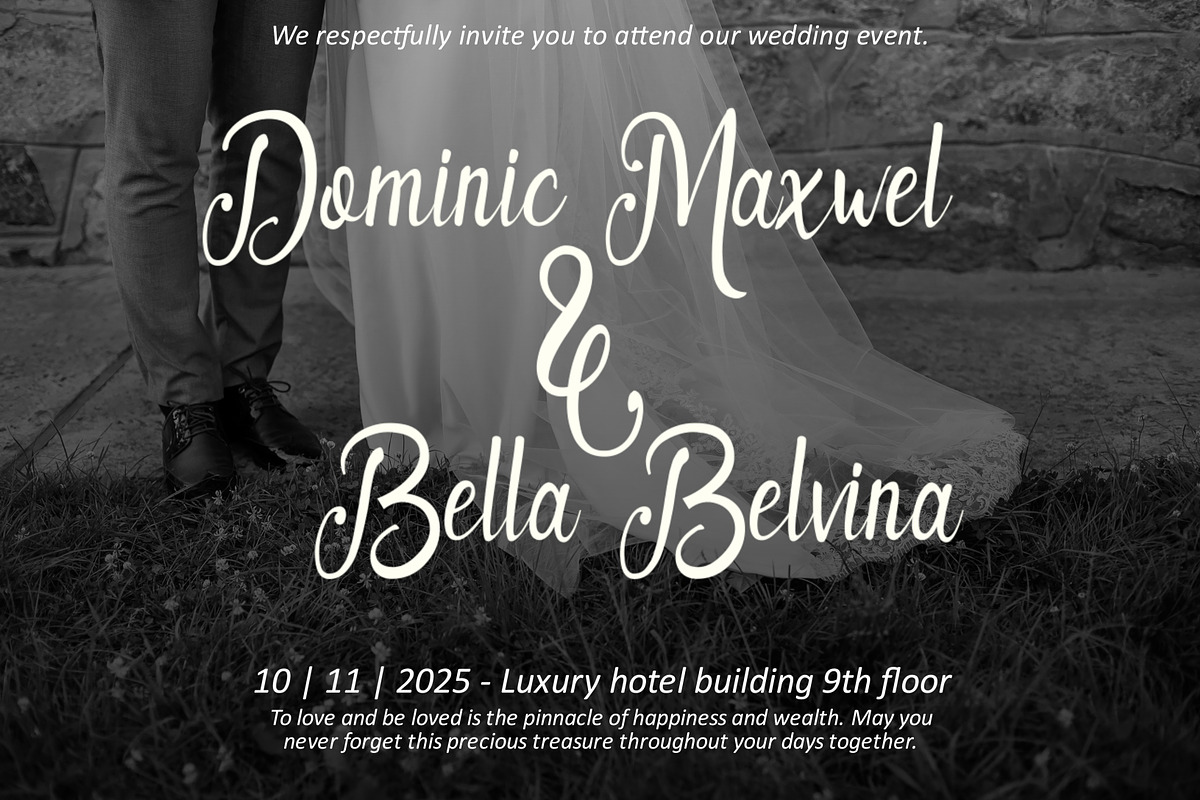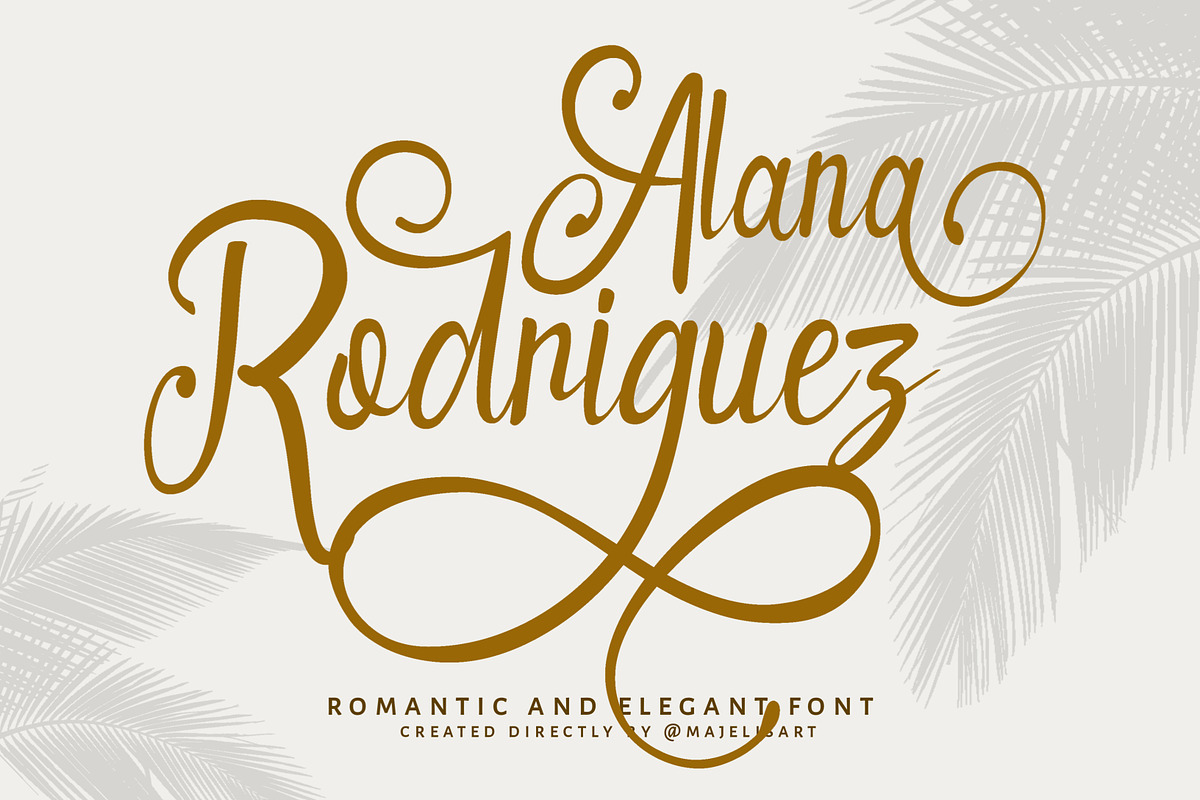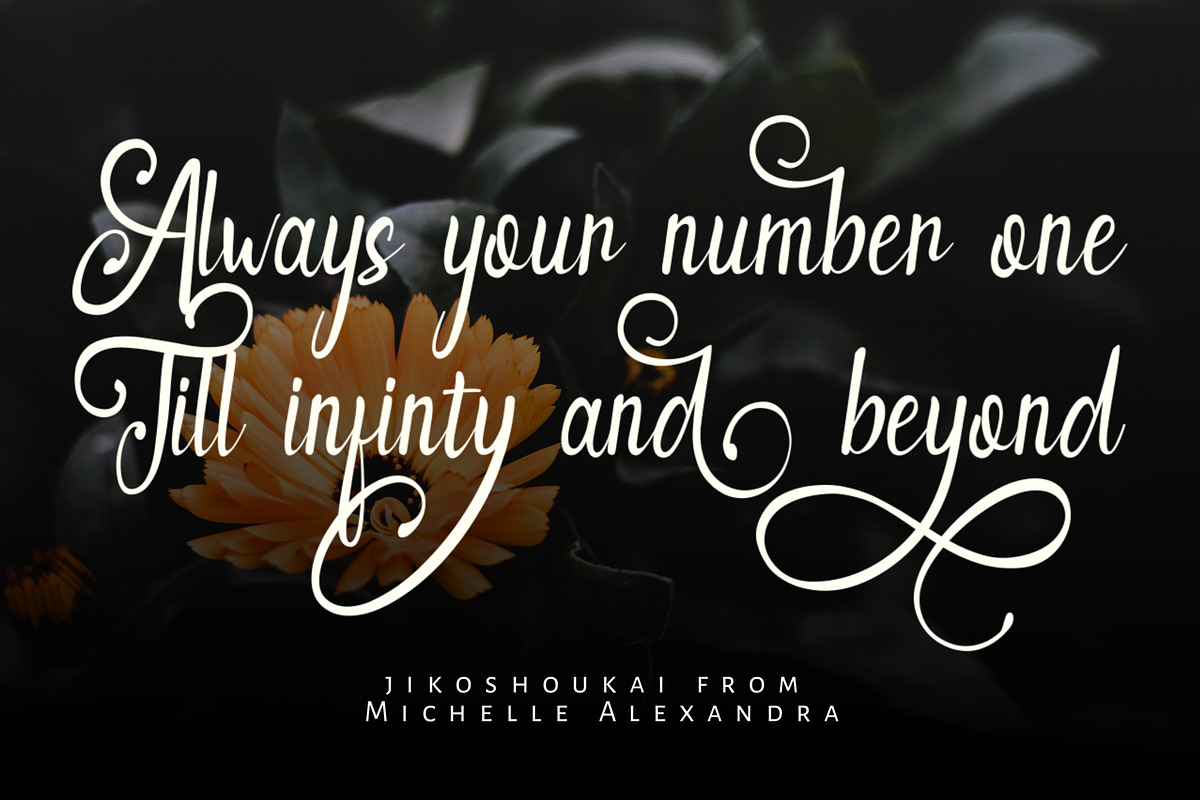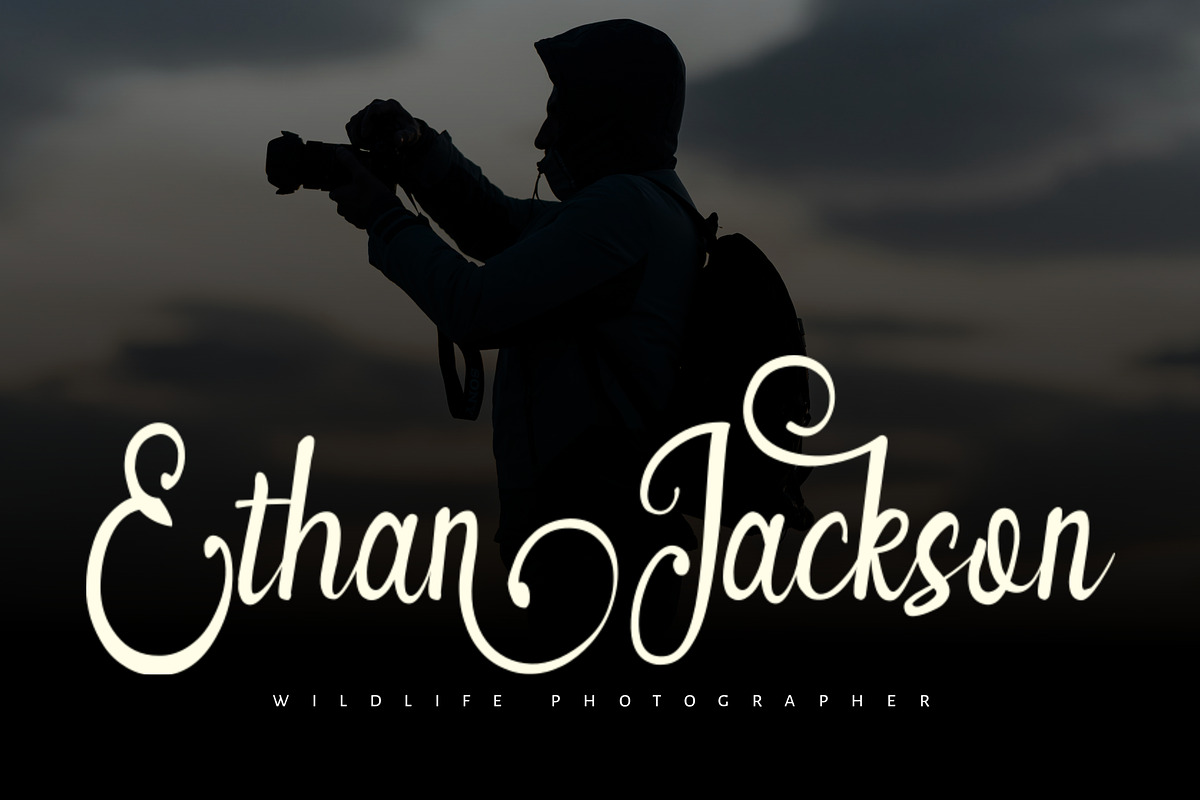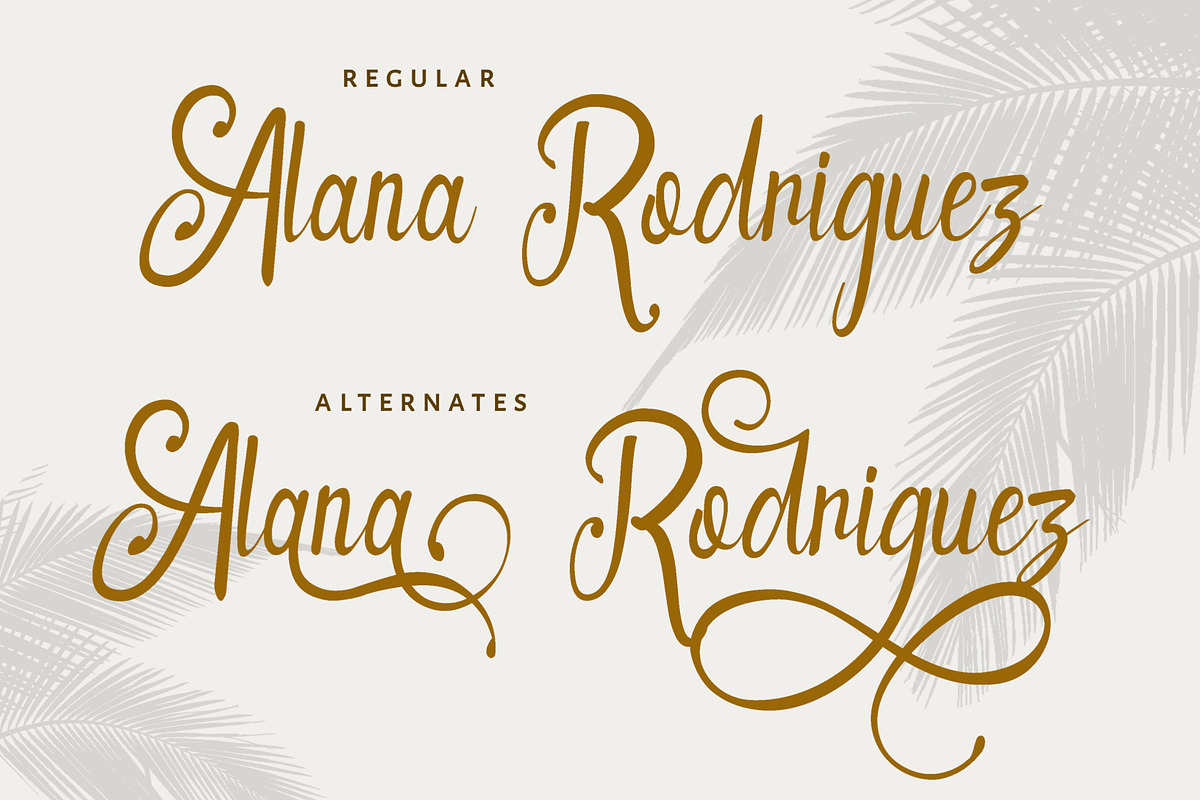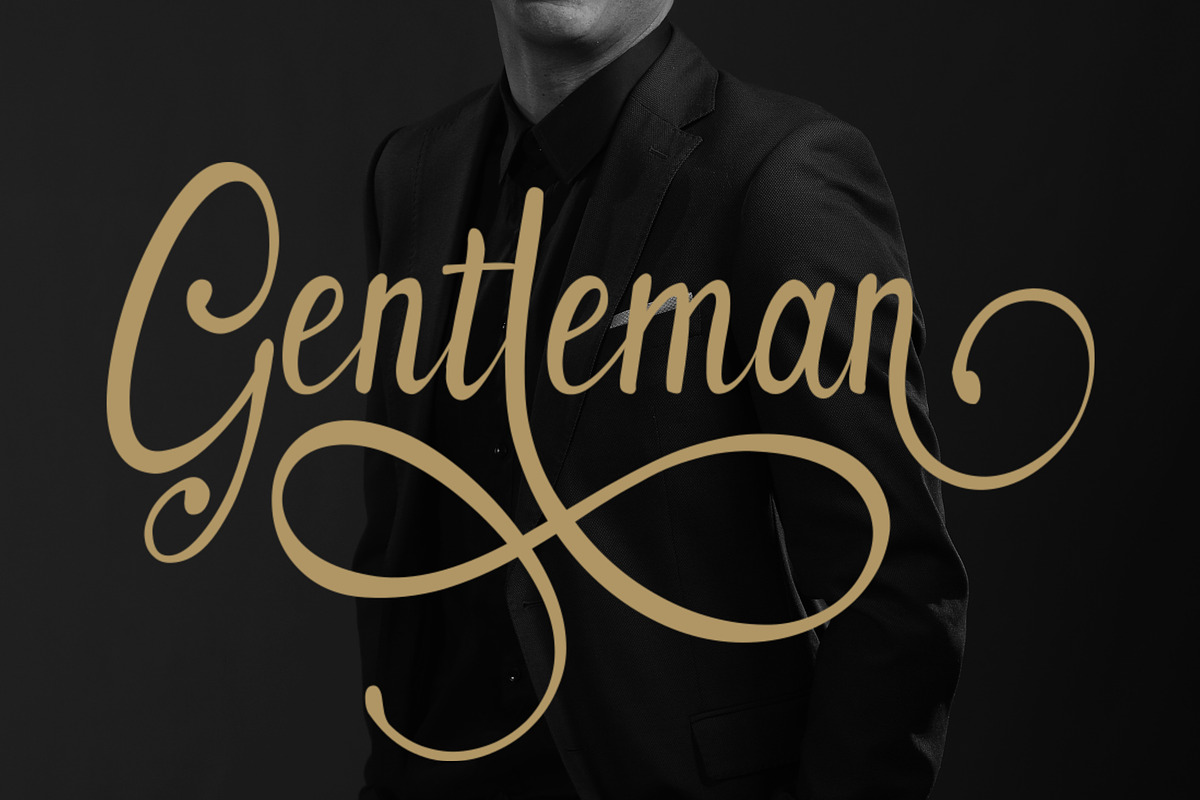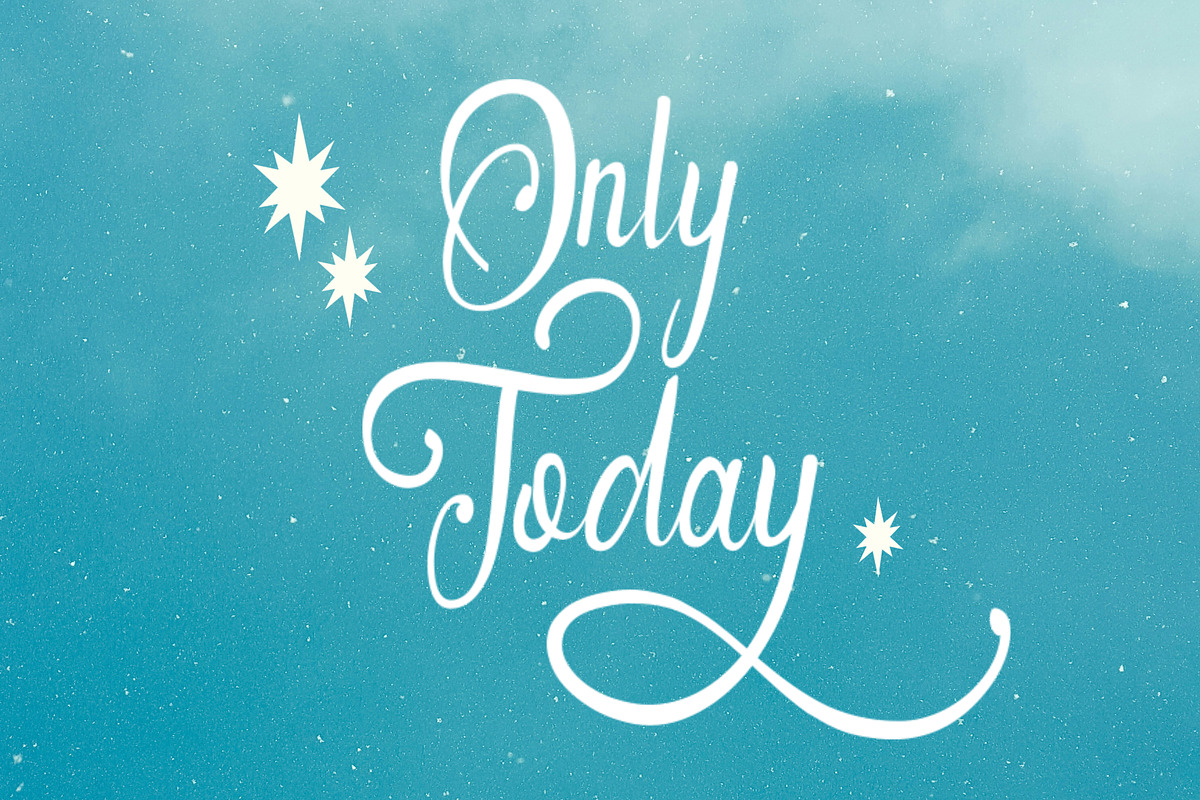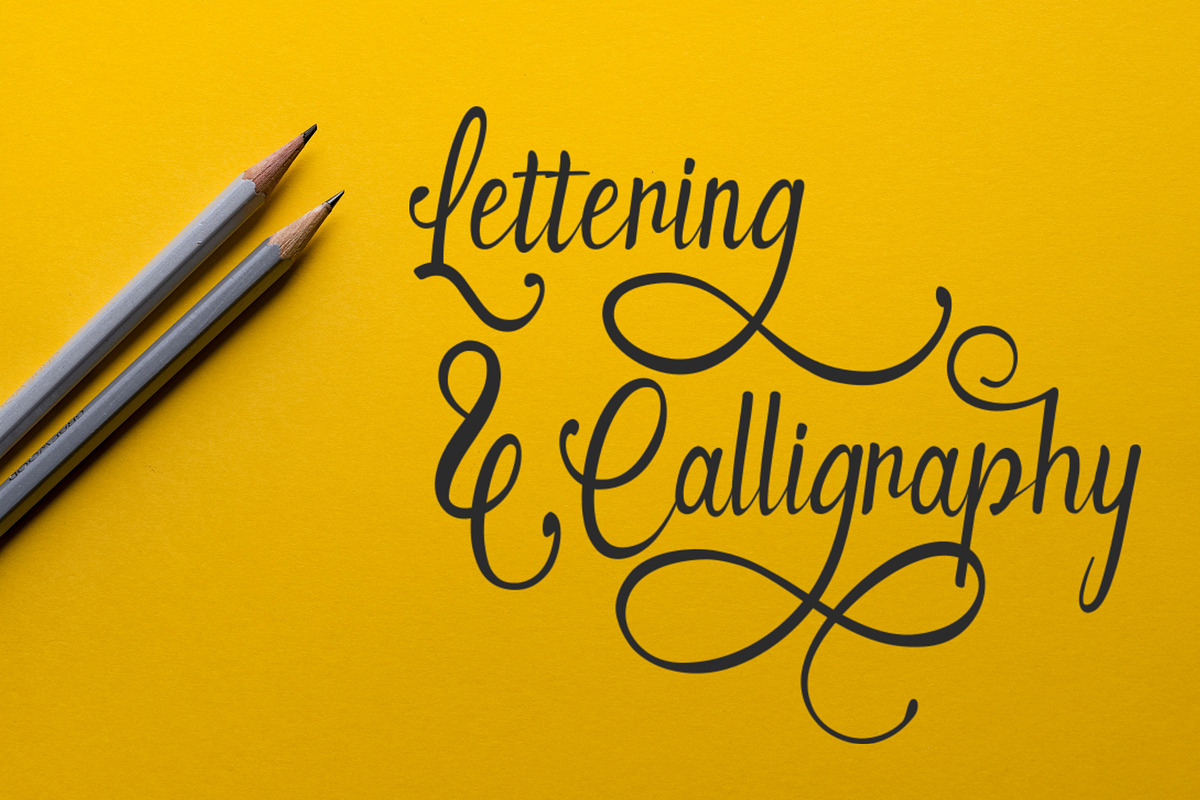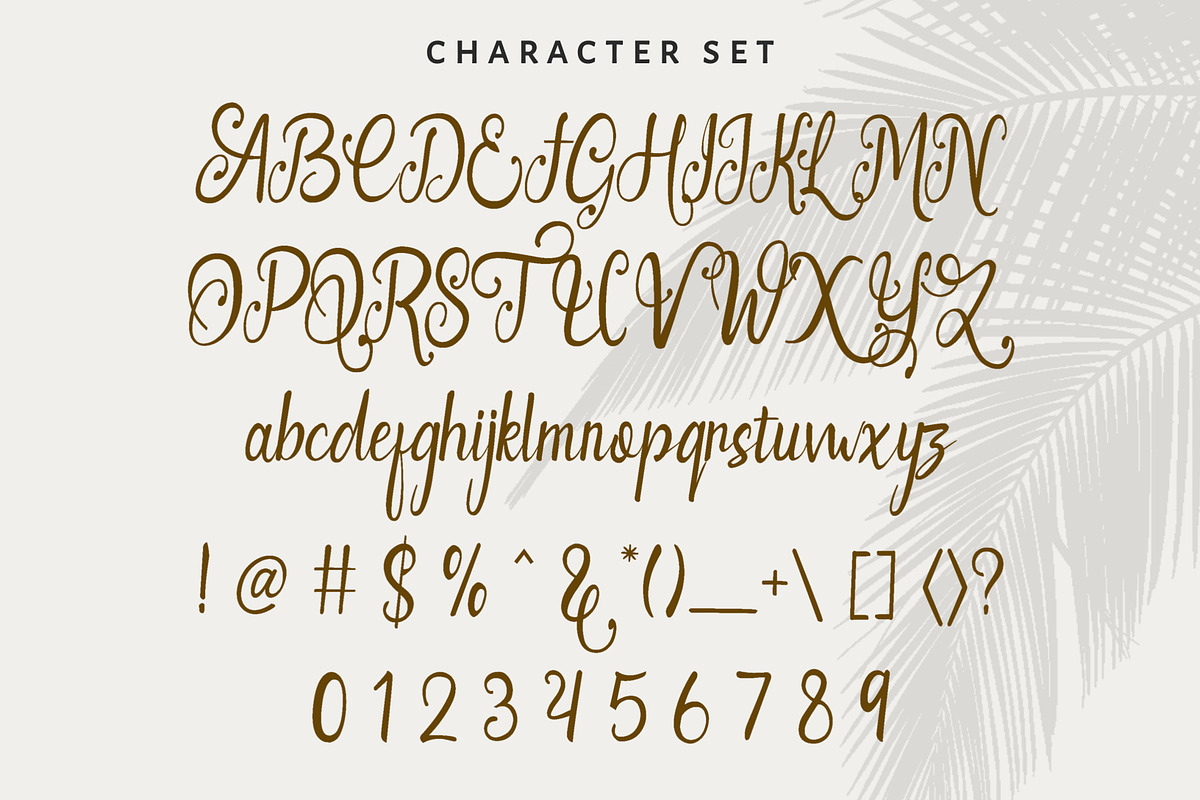
Alana Rodriguez
Alana Rodrigues is a beautiful font in the form of modern calligraphy.Described with a beautiful and elegant touch. Perfect for wedding invitations, cafe names, and clothing products. This font will make your heart melt with its unique signature touch.